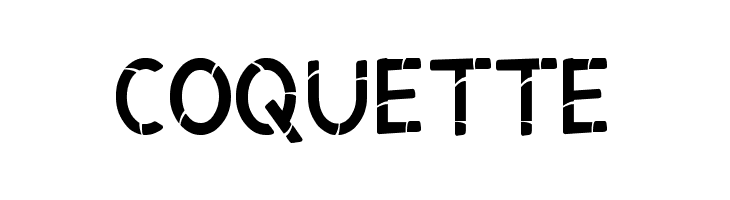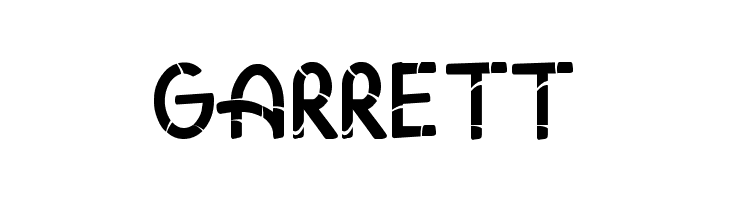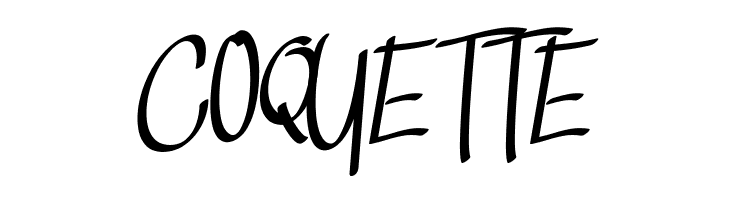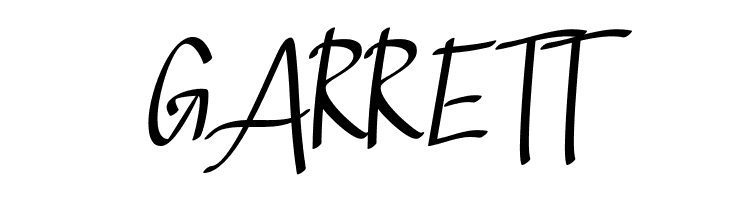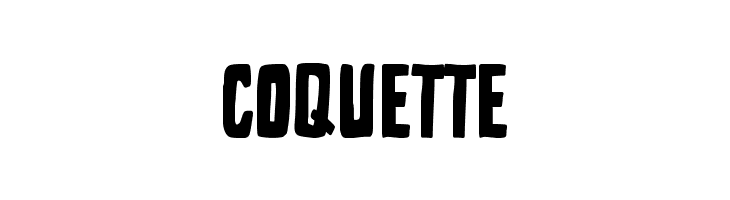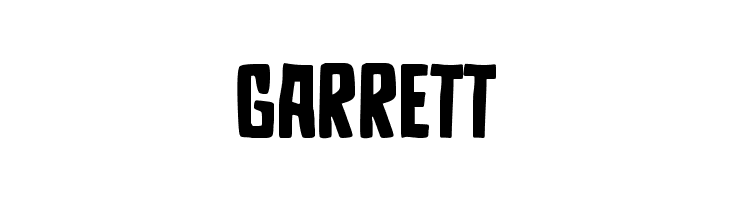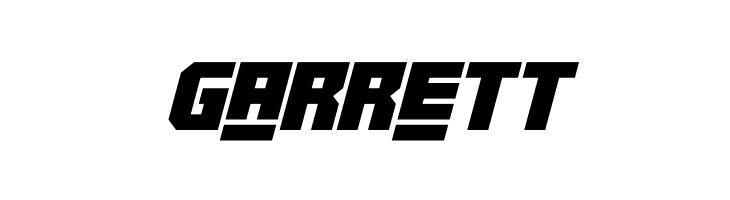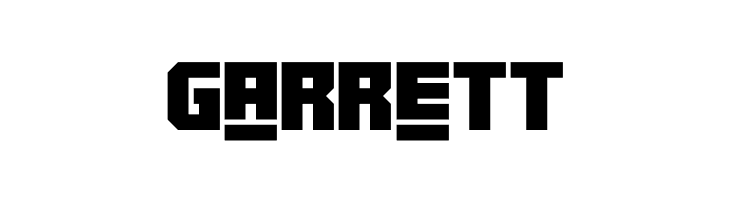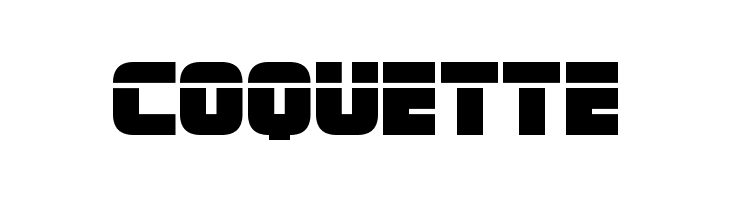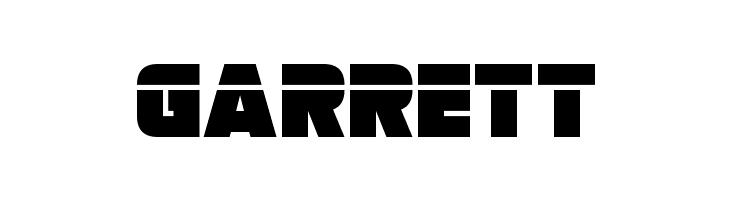
A modern, hollow, and geometric font with inverse strokes and angular design.
A modern, angular font with a futuristic and dynamic design.
A bold, geometric font with a futuristic and retro style.
A modern, geometric font with clean lines and uniform stroke width.
A modern, geometric font with consistent stroke widths and a clean design.
A bold, playful font with a hand-drawn, organic style.
A lively and energetic script font with fluid, dynamic strokes.
A cursive, handwritten-style font with elegant, flowing strokes.
A playful, casual handwritten font with irregular strokes.
A casual, handwritten font with dynamic strokes and a lively appearance.
A playful, hand-drawn font with a doodle-like, energetic style.
A playful, casual handwritten font with rounded, irregular letterforms.
A graceful and elegant script font with flowing cursive letterforms.
A bold, playful font with a shadowed outline and whimsical flair.
A bold, playful handwritten font with a casual and friendly style.
A futuristic and geometric font with clean lines and symmetrical shapes.
A futuristic, italicized font with sleek, angular letters.
A bold, geometric font with a futuristic, robotic style.
A bold, italicized, futuristic font with geometric angles and a dynamic style.
A bold, brush-style font with dynamic strokes and high contrast.
A lively handwritten font with fluid, dynamic strokes and a playful, informal style.
A bold, brush-style font with dynamic and energetic strokes.
A modern, stencil-like font with bold, rounded strokes and angular cuts.